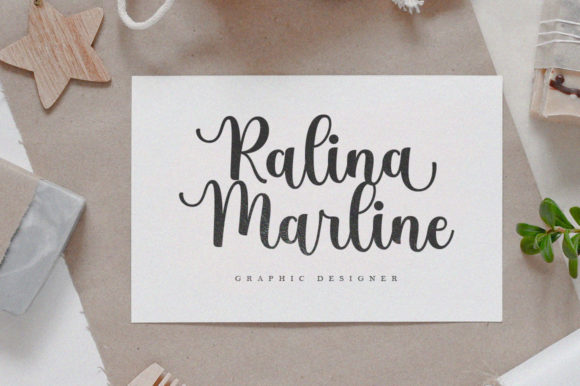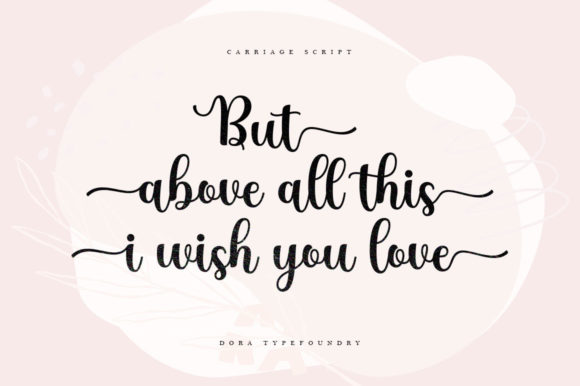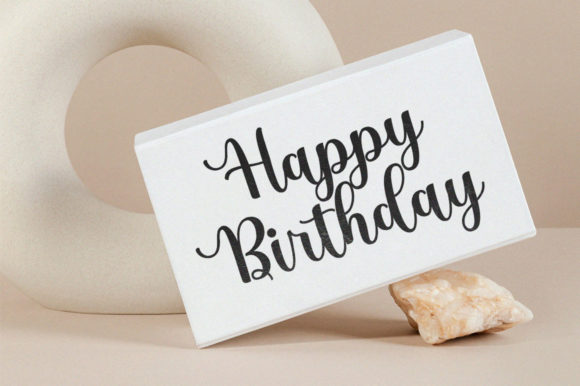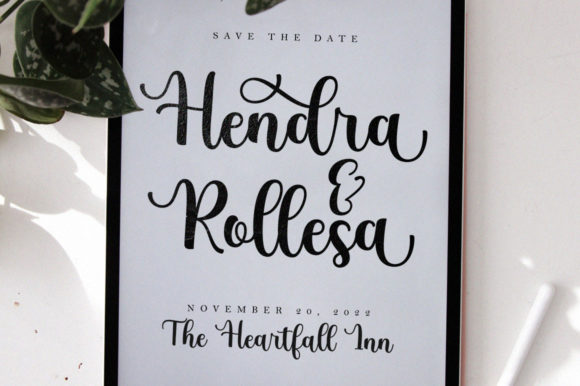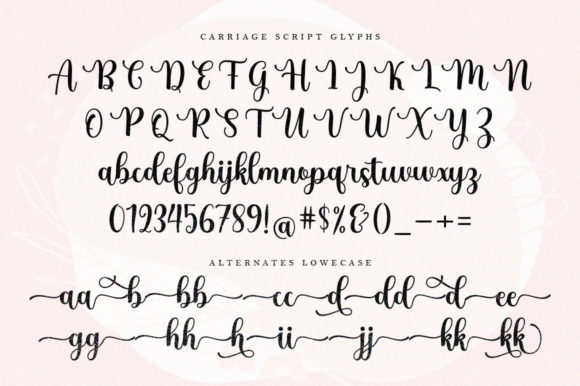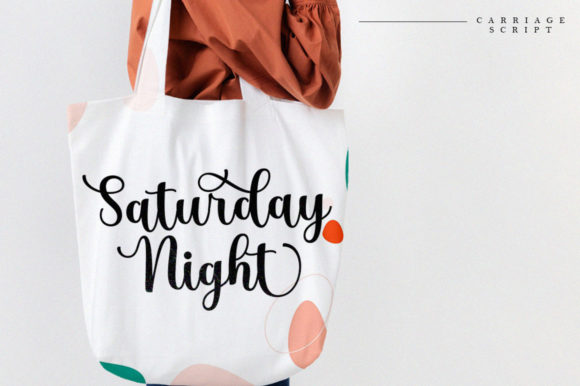
The Delicate Art of Typography: Unleashing the Beauty of Carriage Script Font
As a designer, there’s nothing quite like the thrill of bringing a new project to life. The blank page stares back at you, waiting for the perfect combination of words and images to emerge. It’s a moment of pure creative freedom, and one that can be both exhilarating and intimidating. But what if you had the perfect tool to help you unlock your full potential? Enter the Carriage Script Font, a delicate and stylish script font that’s sure to elevate your designs to new heights.
With its PUA encoding, accessing the font’s full range of glyphs and swashes is a breeze. This means you can add a touch of sophistication and elegance to your projects with confidence. Whether you’re working on a wedding invitation, a branding campaign, or a novel, the Carriage Script Font is a valuable addition to any designer’s toolkit. Its versatility and beauty make it a must-have for any creative looking to take their work to the next level.
Key Features of Carriage Script Font
- Font Family: Carriage Script
- Unique Characteristics: Hand-drawn, cursive script font with elegant and sophisticated feel, ideal for formal and elegant designs
Designer Review: Carriage Script Font
I’ve had the chance to work with Carriage Script Font, and I must say it’s a mixed bag. On the one hand, ✨ the elegant script style and beautiful flourishes make it perfect for wedding invitations, stationery, and other romantic designs. The font is also highly customizable, allowing for a wide range of font sizes and line heights to suit your project’s needs.
However, ⚠️ there are some limitations to consider. The font’s script style can be overwhelming if not used sparingly, and the complexity of the design may lead to compatibility issues with certain software or operating systems. Additionally, the font’s high contrast between thick and thin lines can make it challenging to read at smaller font sizes.
Overall, I’d give Carriage Script Font 3.5 out of 5 stars. While it’s a beautiful font, its limitations and potential compatibility issues hold it back from being a top choice for designers. That being said, with careful use and attention to detail, it can still be a great addition to your design toolkit.
Here are some pros and cons to consider:
- ✨ Elegant script style and beautiful flourishes
- ✨ Highly customizable
- ⚠️ Overwhelming script style if not used sparingly
- ⚠️ Potential compatibility issues with certain software or operating systems
- ⚠️ Challenging to read at smaller font sizes
Getting the Most Out of Carriage Script Font
To get the most out of the Carriage Script Font, try the following:
- Use it for titles and headings to add a touch of elegance.
- Combine it with other fonts to create a unique and interesting look.
- Experiment with different font sizes and colors to achieve the desired effect.
The Carriage Script Font is commonly used:
- For wedding invitations and stationery.
- For branding and logo design.
- For creating elegant and sophisticated titles and headings.
Alternatives to Carriage Script Font for Designers
Playfair Display is a luxurious, high-end script font with elegant and refined characteristics. It is ideal for use in high-end branding, advertising, and editorial content where a touch of sophistication is required. Compared to Carriage Script Font, Playfair Display has a more ornate and luxurious feel, making it suitable for high-end applications.
Great Vibes is a modern script font with a friendly and approachable feel. It is perfect for use in casual branding, advertising, and social media content where a relaxed and conversational tone is desired. Compared to Carriage Script Font, Great Vibes has a more relaxed and casual feel, making it suitable for everyday applications.
Carolyna Pro is a elegant and sophisticated script font with a touch of vintage charm. It is ideal for use in high-end branding, advertising, and editorial content where a sense of luxury and sophistication is required. Compared to Carriage Script Font, Carolyna Pro has a more refined and elegant feel, making it suitable for high-end applications.